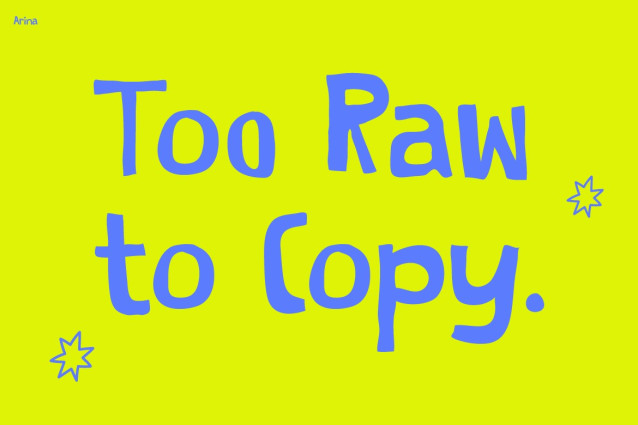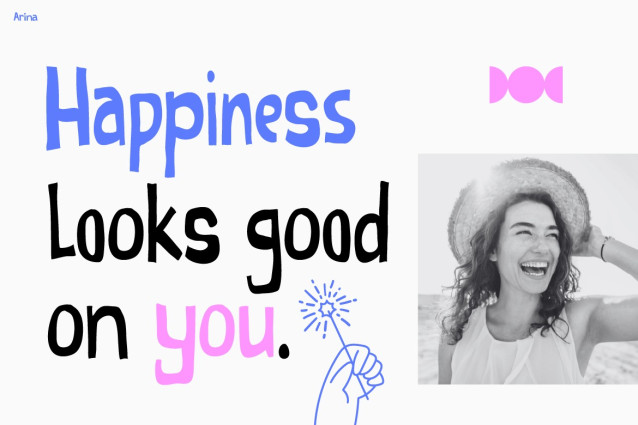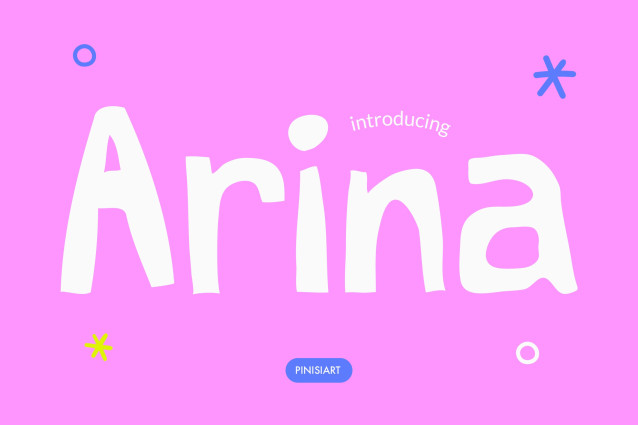
Arina Display Font
Arina Display Font is a unique typeface that shines with bold strokes, fun curves, and a cheerful personality. Its aesthetic is vibrant and full of energy, and it makes every word feel alive. Designed to be eye-catching and approachable, this font also blends playfulness with a handcrafted touch. Rounded shapes and quirky details bring a sense of wonder, while clean readability ensures it works well in both digital and print. Therefore, whether for posters, branding, or educational projects, it adds a joyful spark that connects instantly with kids and adults.
With its lively style, Kids Font Arina is more than just a typeface—it’s also a design tool that boosts creativity. The expressive letterforms make bold titles stand out, and they also help motivational quotes pop with personality. Its versatility means you can use it for vibrant packaging, colorful social media posts, or cheerful branding. In addition, every letter feels alive, telling its own playful story. This makes the font perfect for projects that aim to spread positivity, happiness, and youthful energy.